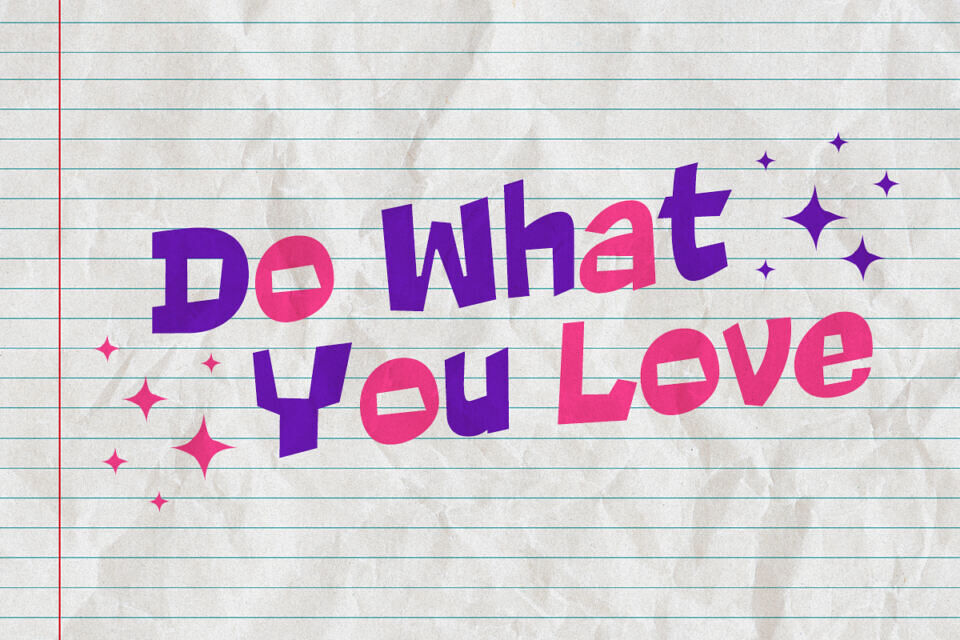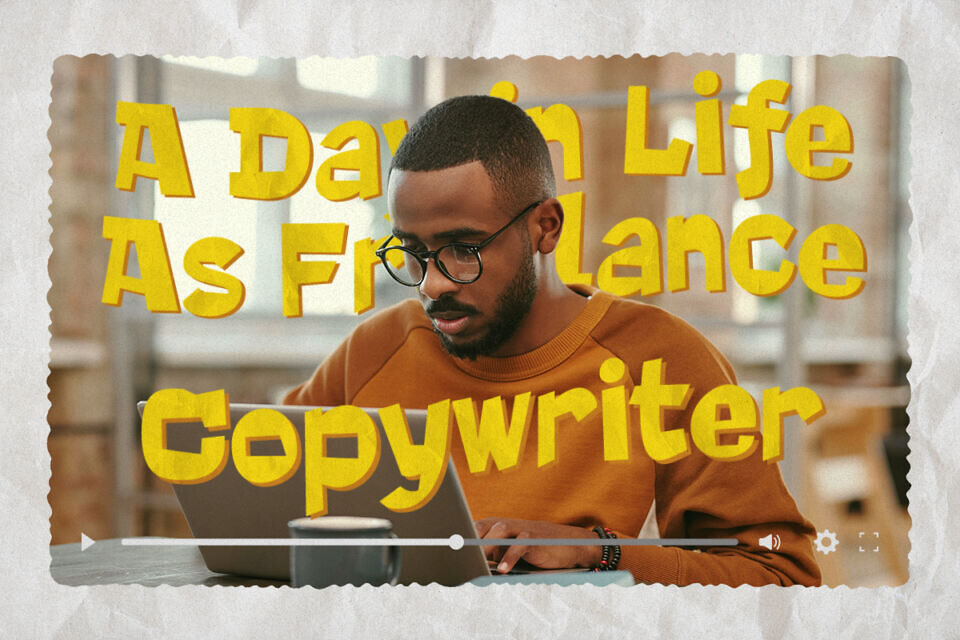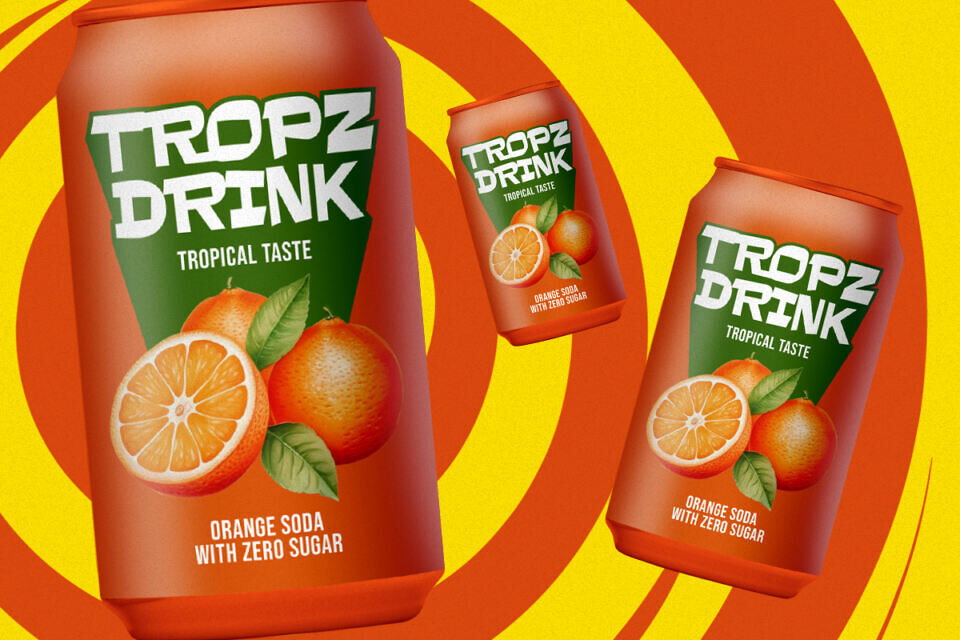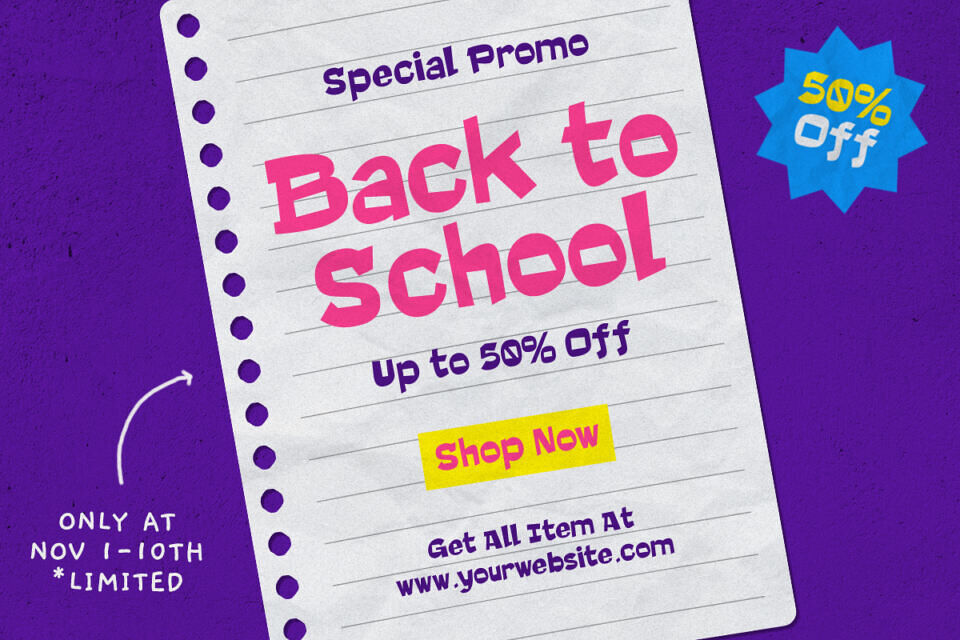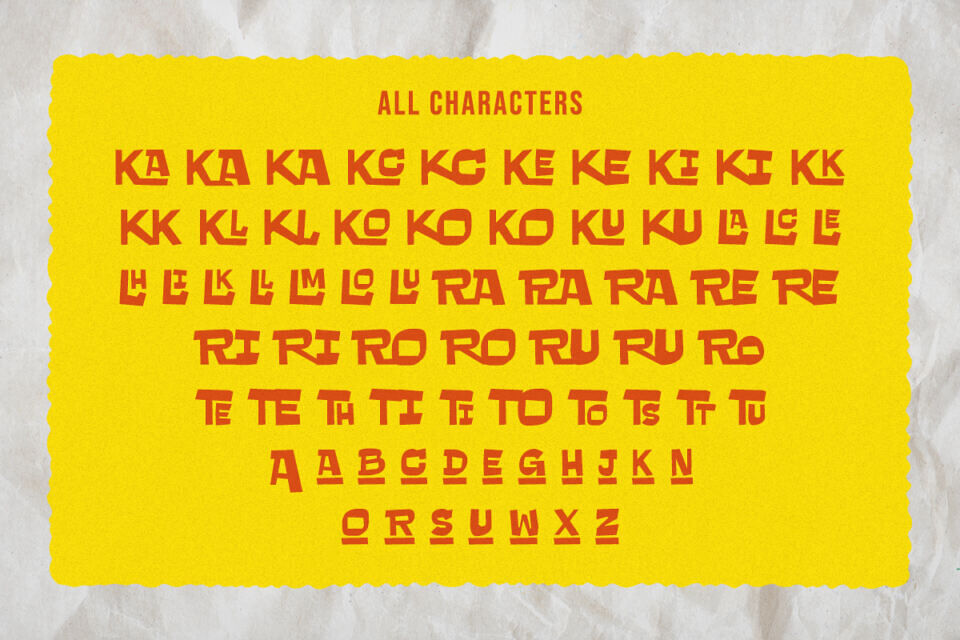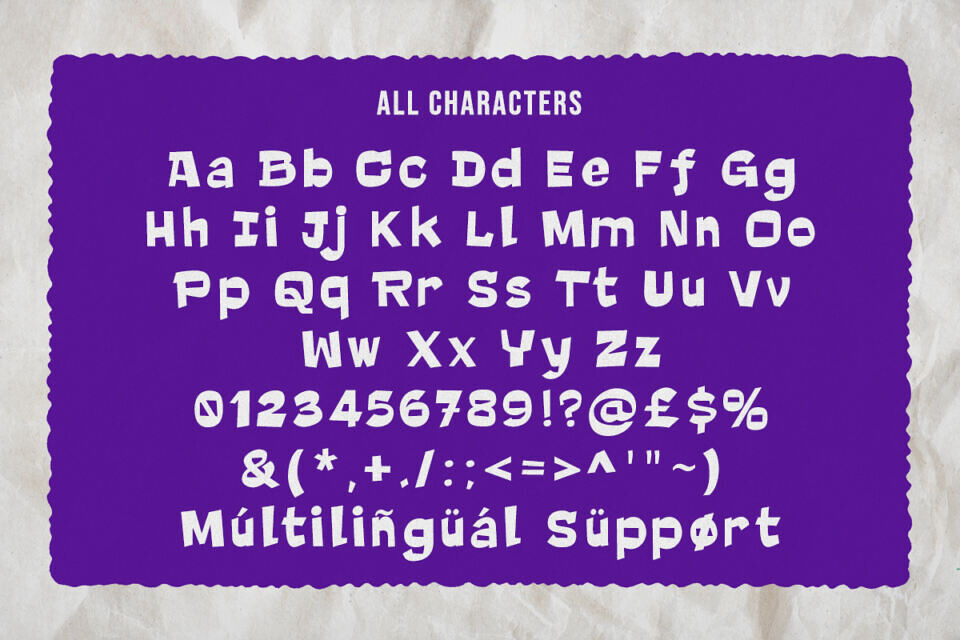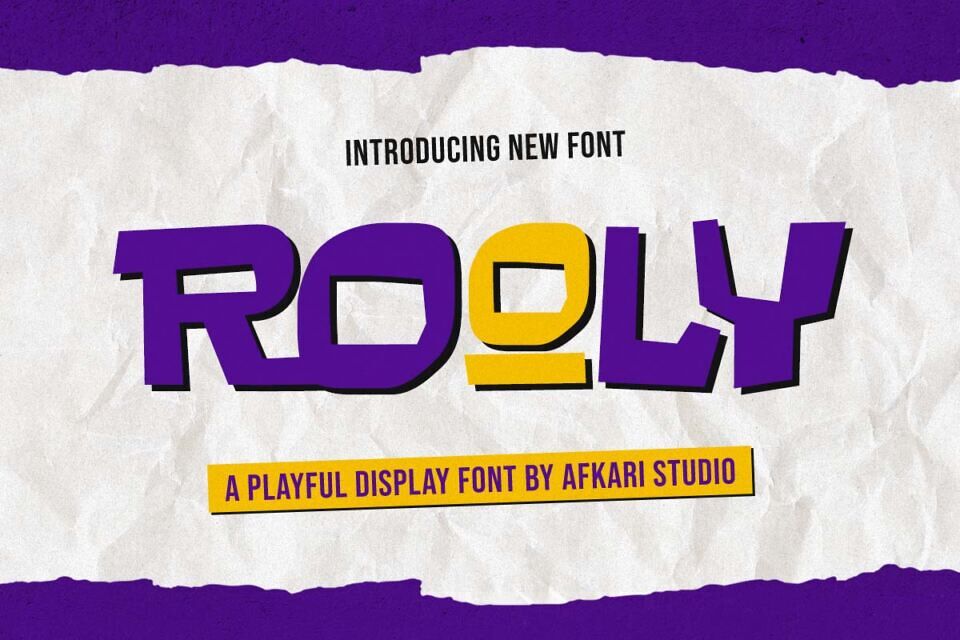
Rooly Font
Rooly is a fun and cheerful display font designed to bring energy and personality to your creative projects! With its bold shapes, quirky curves, and friendly character, Rooly is perfect for eye-catching designs like logos, posters, merchandise, packaging, social media posts, and kids-themed projects.
Whether you’re crafting a playful brand identity, a vibrant headline, or a joyful illustration, Rooly adds a splash of happiness and creativity to every letterform. Its versatility makes it a great choice for both digital and print designs!